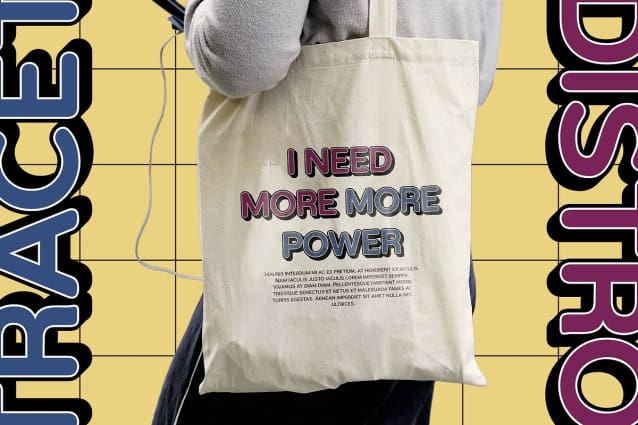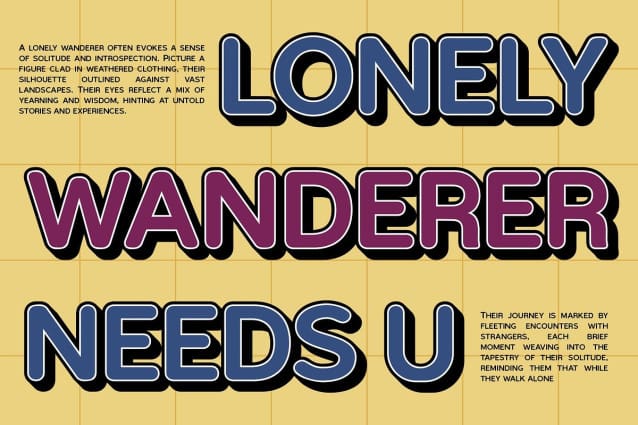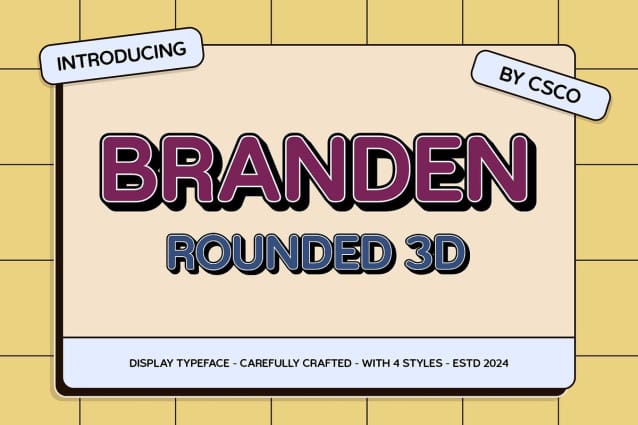
Branden Rounded 3D Font
Branden Rounded 3D Font is a modern sans-serif font that combines geometric precision with soft, rounded forms, enhanced by a sleek 3D effect. Its clean lines and smooth curves create a visually striking design, offering a contemporary aesthetic with a sense of dimensional depth. This font is perfect for projects that need a bold, modern look with an added layer of sophistication and impact.
Contemporary and Eye-Catching With its geometric structure and rounded edges, Branden Rounded 3D stands out in any design, making it ideal for headlines, branding, digital projects, and other high-visibility applications. The 3D effect adds a modern twist, giving it depth and dimension without compromising its clean, sharp aesthetic. This makes it a perfect choice for designs aiming to make a strong, eye-catching impression.
Perfect for Bold and Impactful Designs The sleek, 3D-enhanced design of this rounded 3D font ensures it works well in both large formats, such as posters and signage, and smaller digital spaces like websites and app interfaces. Its combination of boldness and modernity makes it ideal for projects that require a sense of depth, innovation, and forward-thinking design.